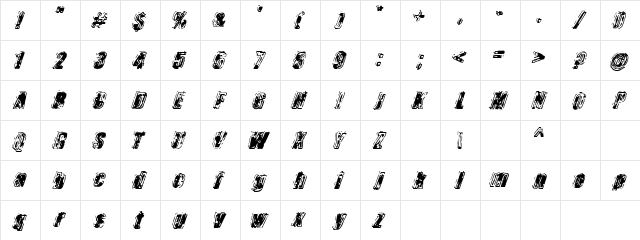
Deadly Black Regular
Design Context for Deadly Black Typeface
Deadly Black is a composed and adaptable typeface that performs quietly and consistently across a wide range of design contexts.